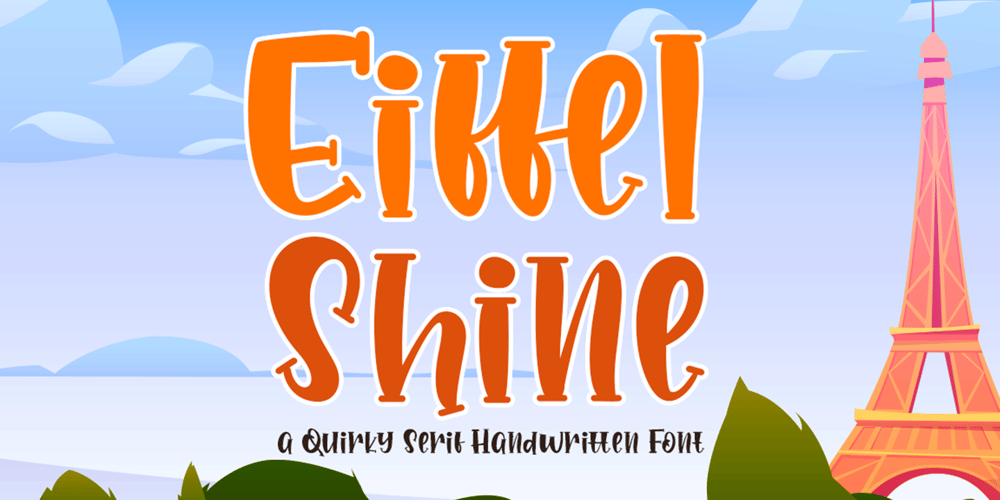
Eiffel Shine
Eiffel Shine font
Eiffel Shine Font Family was designed by Sarwo Edhi Prayitno and published by Haksen. Eiffel Shine contains 1 styles and family package options. A cute serif quirky font style Specifics: Cute style with average high of uppercase Ligatures of the lowercase Numerical, Punctuation, Multi language included Happy Designing!